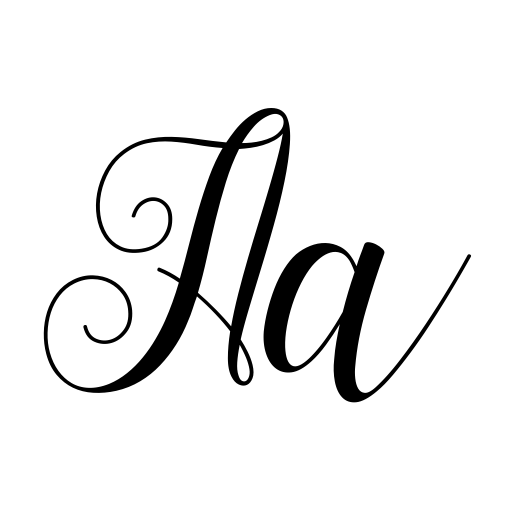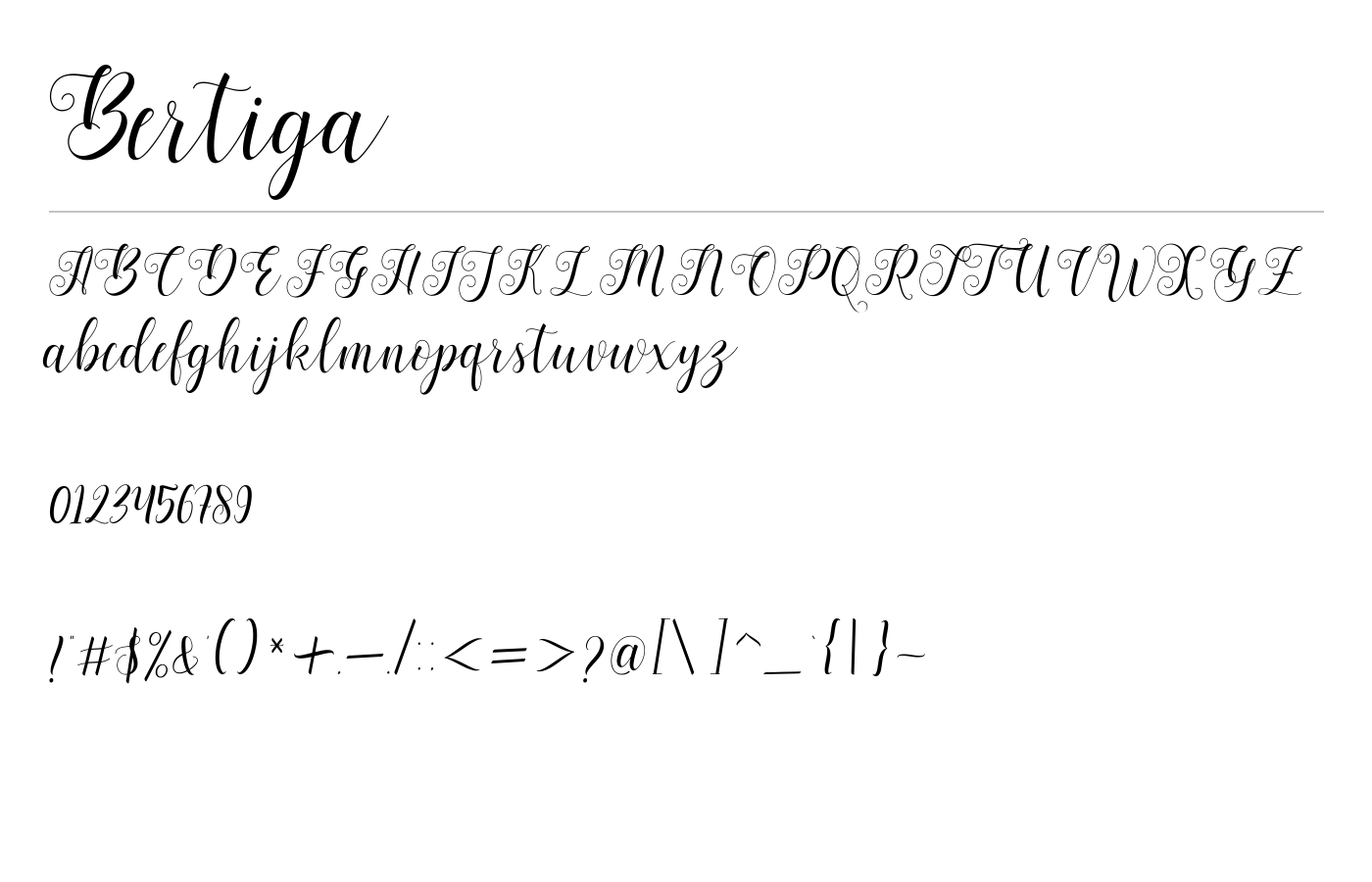
Bertiga is an elegant script font featuring delicate, flowing letterforms with high contrast between thin and thick strokes. Its decorative uppercase characters are adorned with graceful swirls, adding a sophisticated and romantic touch, while the slender lowercase letters maintain readability. This font is perfect for invitations, luxury branding, and stylish headlines where a refined, artistic feel is desired.
Bertiga Font
About Bertiga Font
| Font family | Bertiga Font |